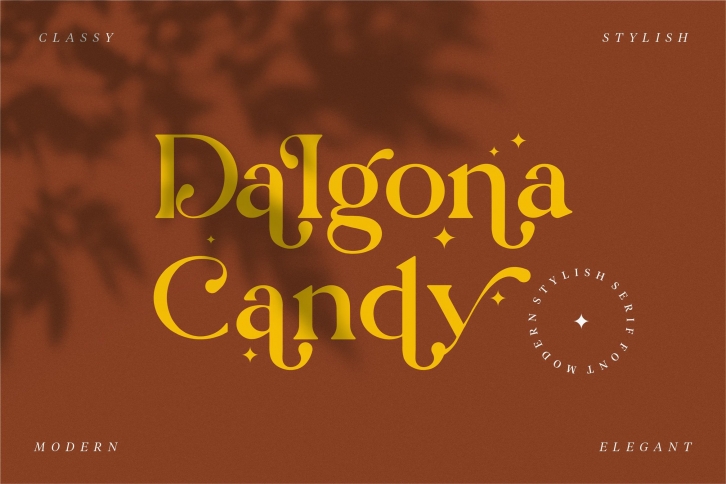
Dalgona Candy is a stylish and elegant serif font. It is PUA encoded which means you can access all of the glyphs and swashes with ease!Â
Fall in love with its incredibly versatile style and use it to create spectacular designs!